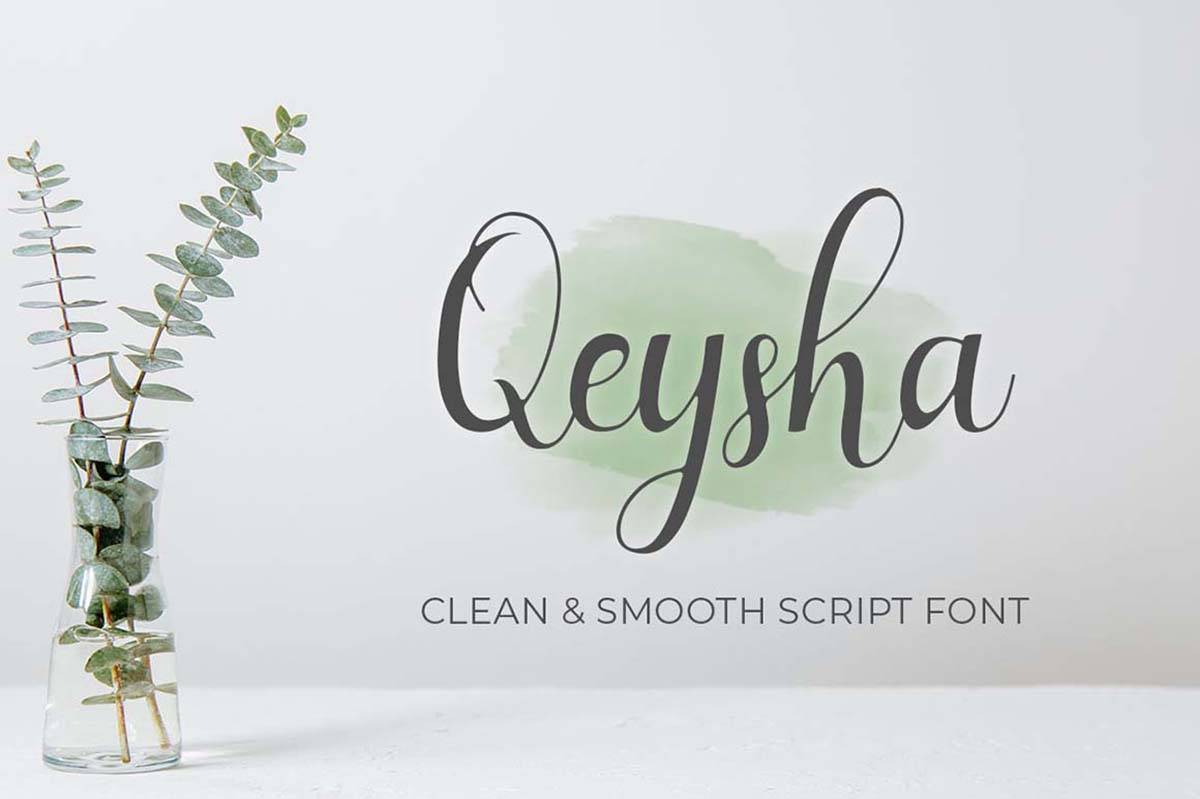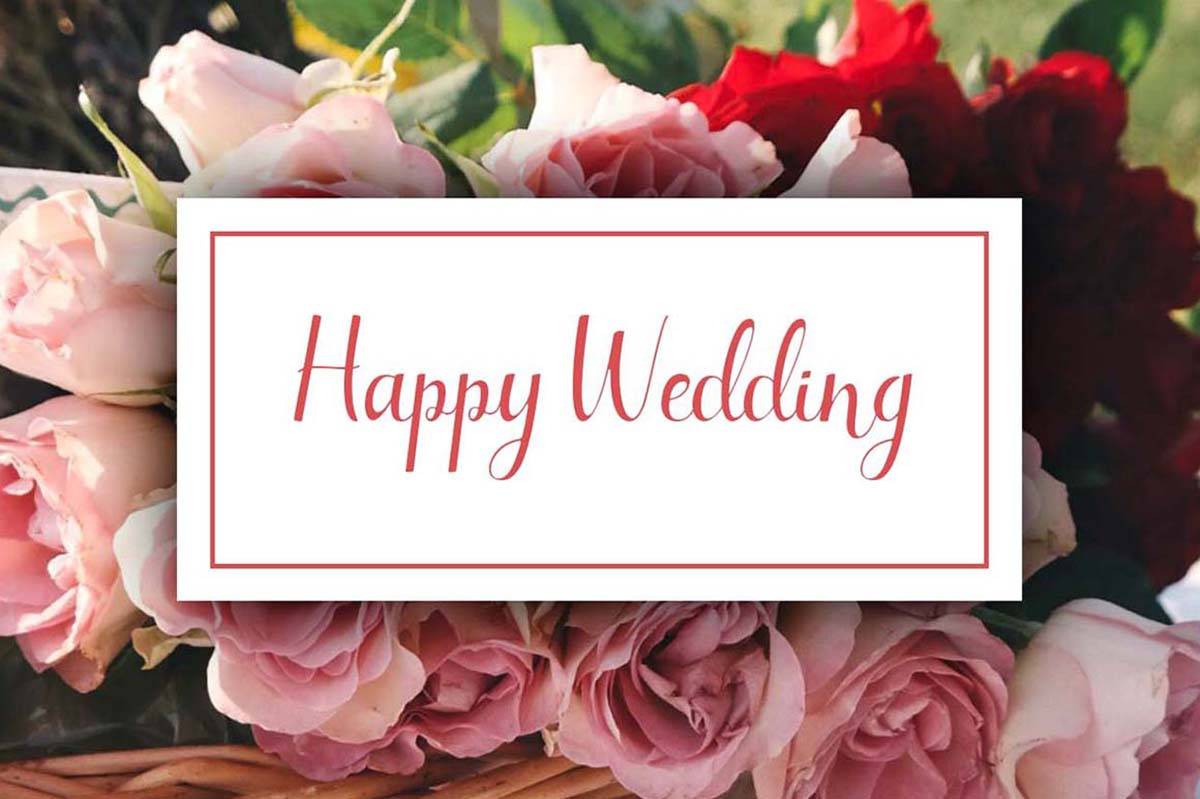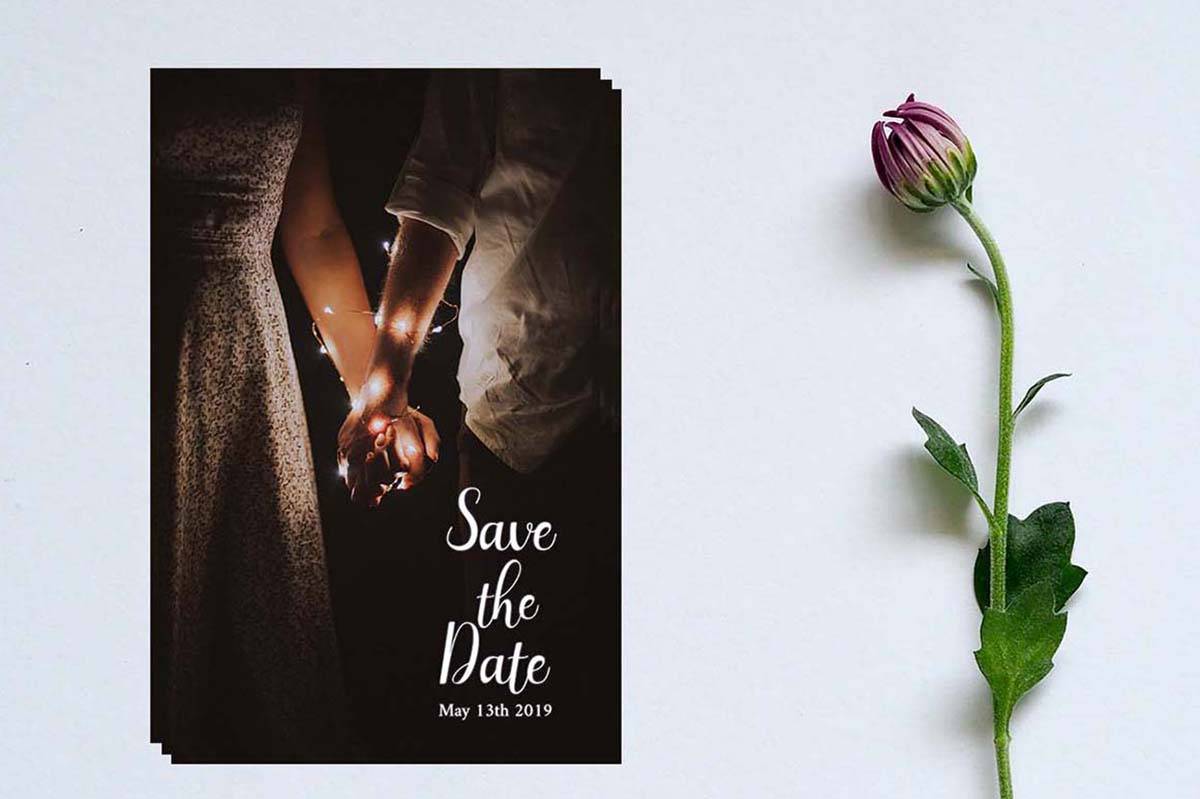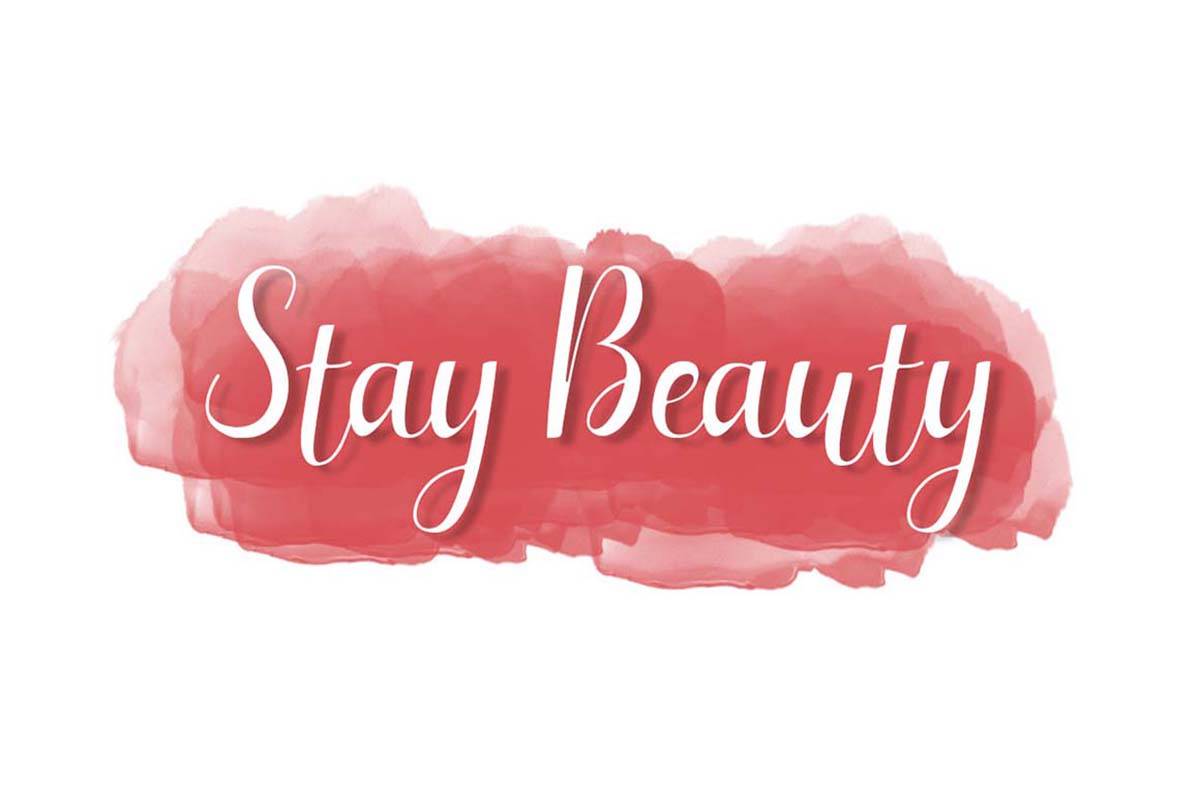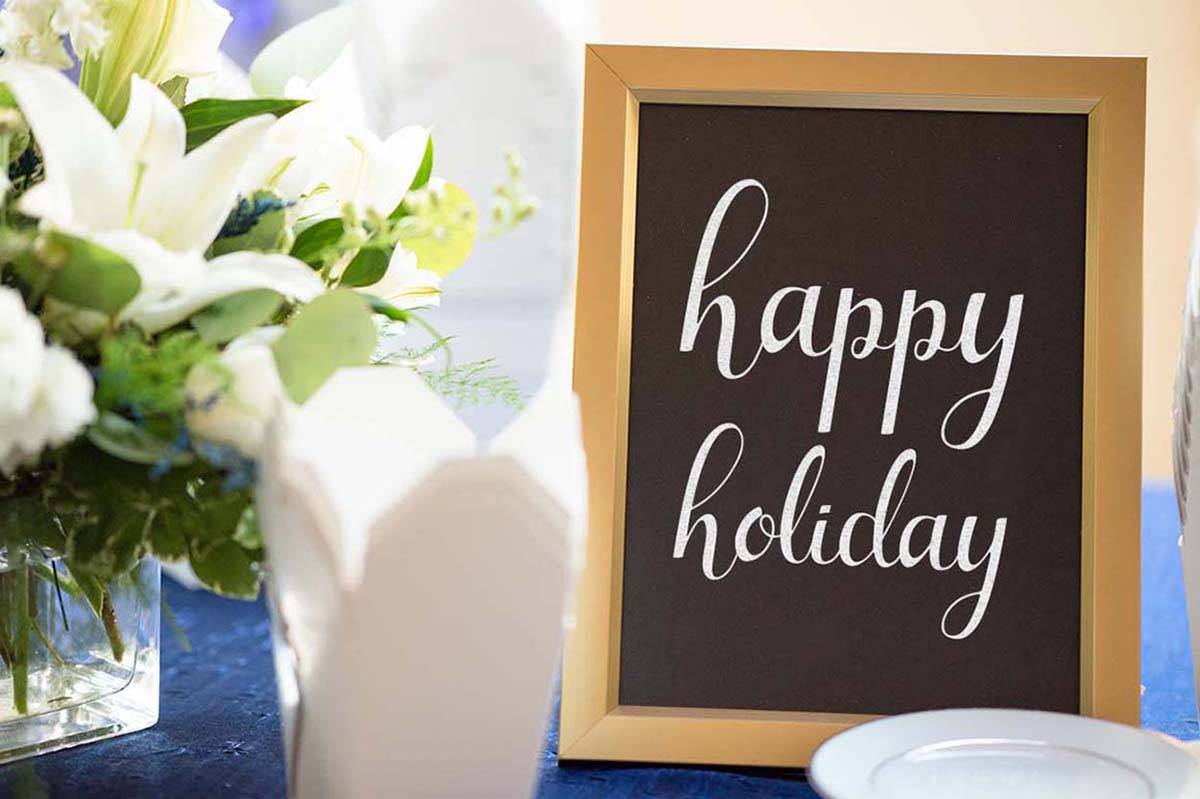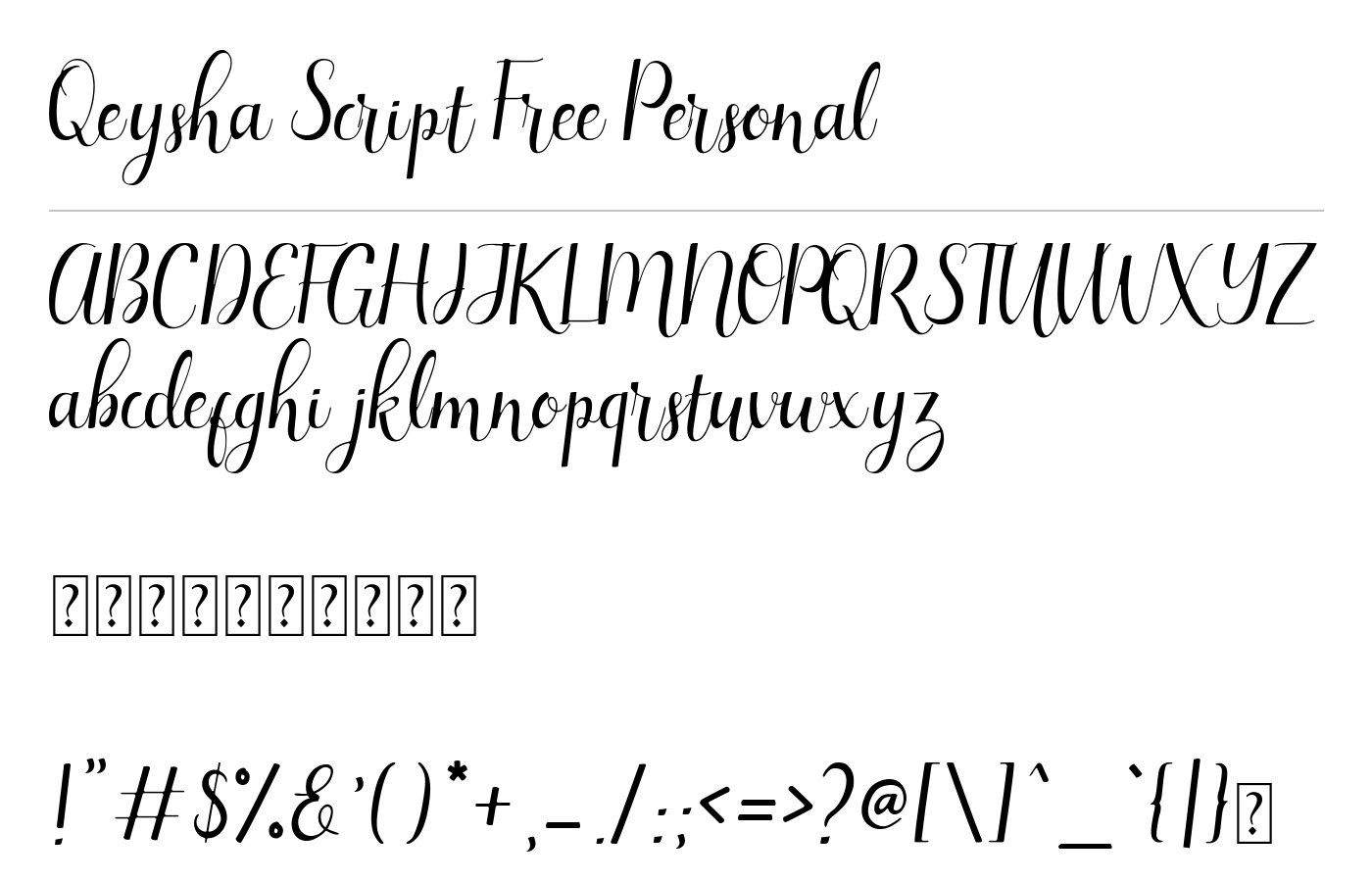
Qeysha is an elegant, slender script font with a graceful, handwritten feel characterized by its tall, flowing letterforms and delicate curving strokes. Its refined style adds a sophisticated, personal touch, making it perfect for invitations, branding, and decorative headlines that need a luxurious yet approachable vibe. This font’s unique charm shines best in creative, feminine, or artistic contexts where elegance and style are key.
Qeysha Font